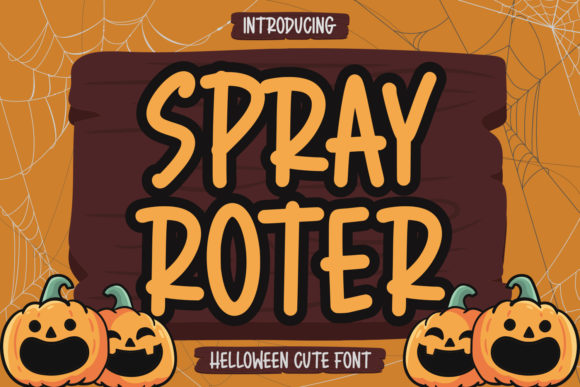
Behold, Spray Roter - the font that oozes charm and character like no other! Its enchanting, spooky flair is like a magical spell that instantly captivates and mesmerizes. Crafted by the masterminds at Typefar, this display font is not just a collection of letters; it's a gateway to a world of creativity and enchantment.
Unleash your imagination and let Spray Roter's magic transform your Halloween ideas into spine-tingling masterpieces. Its meticulously designed characters, reminiscent of neatly lettered signs, will add an eerie elegance to your designs, making them hauntingly beautiful. Experience the thrill of creating invitations that beckon like whispers from beyond, posters that send shivers down the spine, and decorations that evoke the mystical essence of the Halloween spirit.
With Spray Roter, your designs will transcend the ordinary and take on an aura of mystery and enchantment. Its haunting charm will leave an indelible mark on your audience, stirring their emotions and creating an unforgettable experience. Embrace the spooktacular possibilities and let Spray Roter cast its spell on your creative endeavors.
- Spooky and captivating display font perfect for Halloween-themed designs
- Meticulously crafted characters exude a sense of elegance and charm
- Ideal for creating invitations, posters, decorations, and more
- Adds a touch of mystery and enchantment to any project
- Leaves an unforgettable impression on your audience
Don't let this haunting opportunity pass you by! Embrace the magic of Spray Roter, let your creativity soar, and captivate your audience with designs that whisper tales of enchantment. Plunge into the realm of spooky brilliance and make your Halloween creations truly unforgettable!